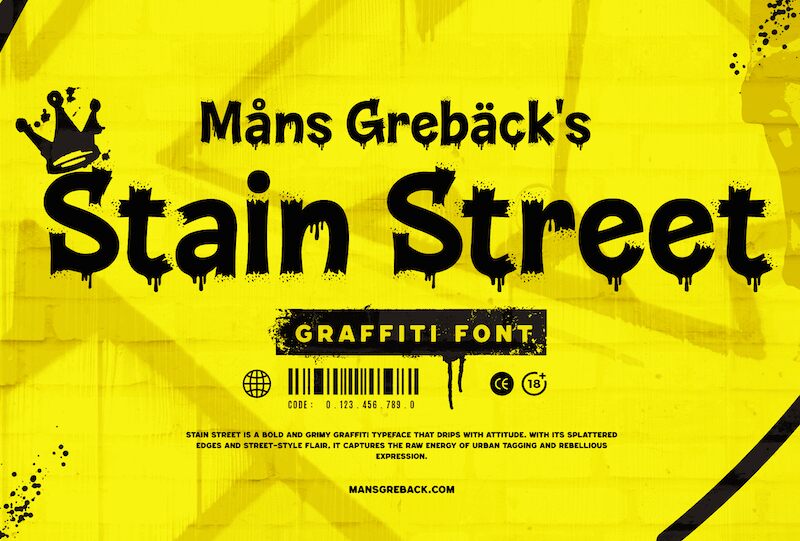
Stain Street font
Stain Street
Stain Street is a bold and gritty graffiti typeface that exudes attitude. With its splattered edges and street-style flair, it captures the raw energy of urban rebellious expression. The brushed letterforms have a playful, cartoonish appearance that enhances their unique character.